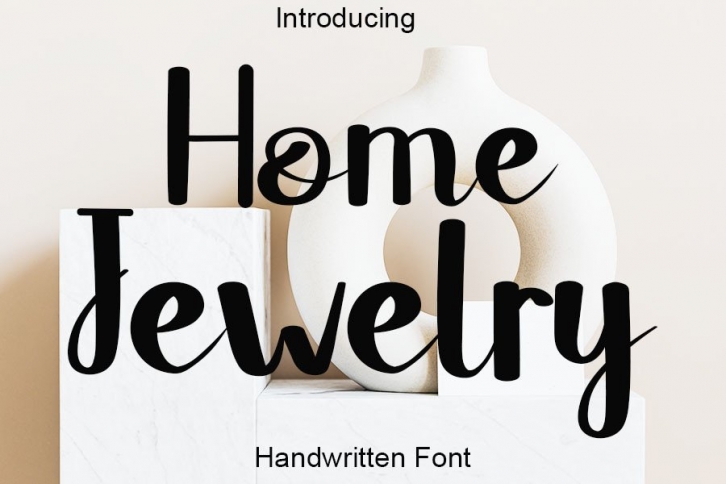
Home Jewelry a neat and beautiful handwritten font described by an elegant touch, perfect for your favorite projects
Fall in love with its incredibly distinct and timeless style, and use it to create spectacular designs!